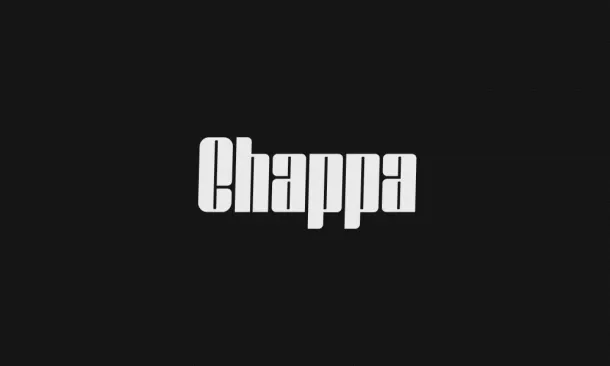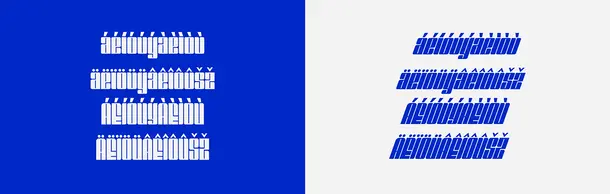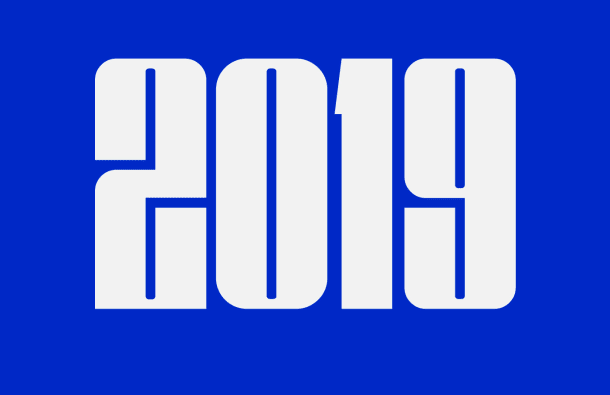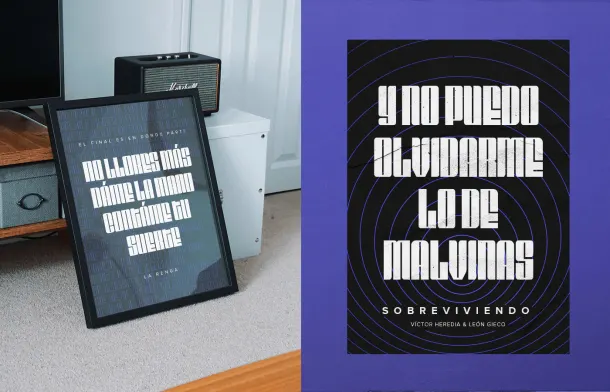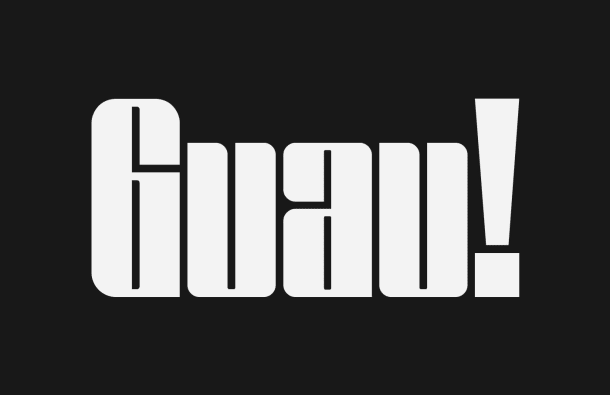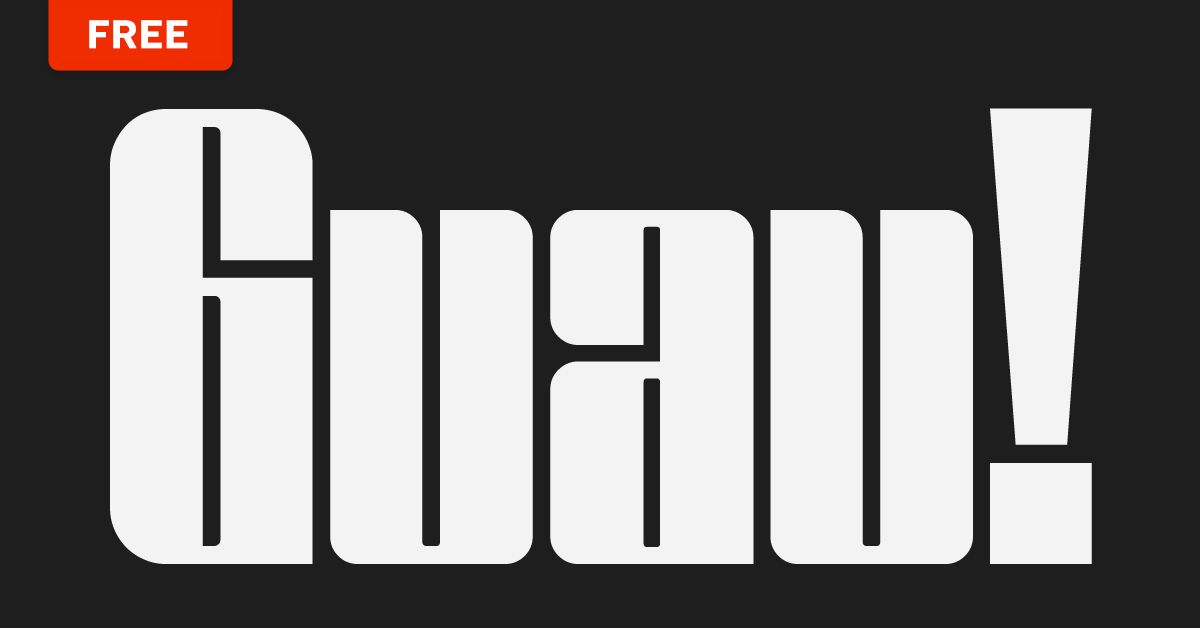
Argentinian designer Lucas Mercado shares an urban art-inspired typeface with the Domestika community, completely free
Ideal for headlines and poster projects, with its high contrast, presence, and thick line weight, Chappa is a typeface designed by Argentinian Lucas Mercado (@lucasmercadodg), available for download at the bottom of this post. The designer from Cordoba, Argentina, conceived and created Chappa through a self-taught learning process, sourcing information from books, the internet, and his university friends. Mercado did not study typography and, although lacking the guidance of a teacher, he decided to create a typeface with parameters of his own.
He knew from the outset that he would create a display typeface with numbers, accents, and variations. He drew the inspiration for the attractive and striking shapes of Chappa from urban surroundings: graffiti written in huge letters on a wall was the spark that formed shapes, contrasts, and thick lines in Lucas's mind for the typeface he's sharing with the Domestika community.
Chappa includes two styles: sans serif and italicized. As mentioned, the font includes numbers, different types of accents, and since it originated in Latin America, even the quirky letter Ñ.
Its features make it suitable for large formats: billboards, headlines, banners, magazines, posters, etc.